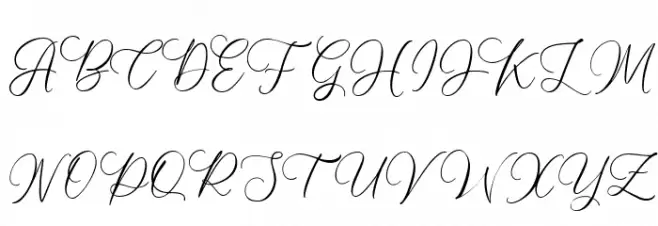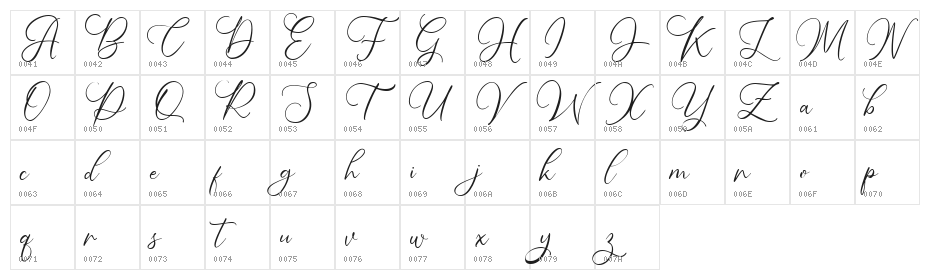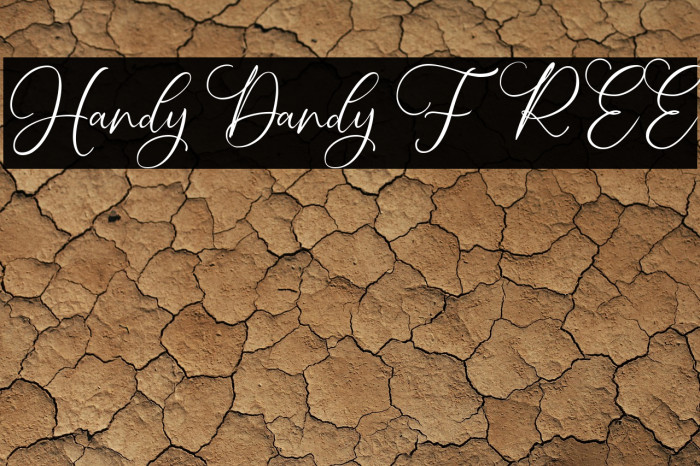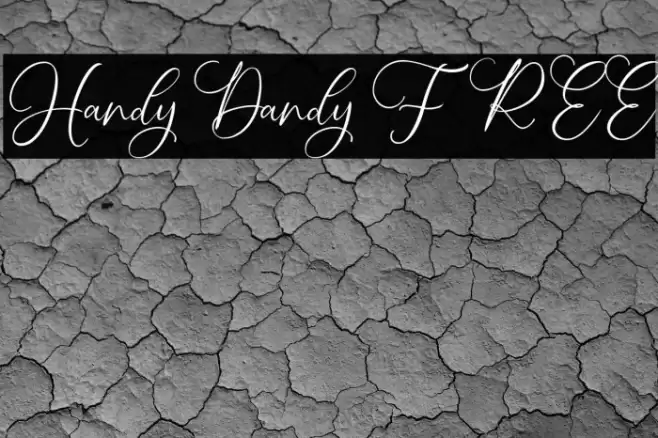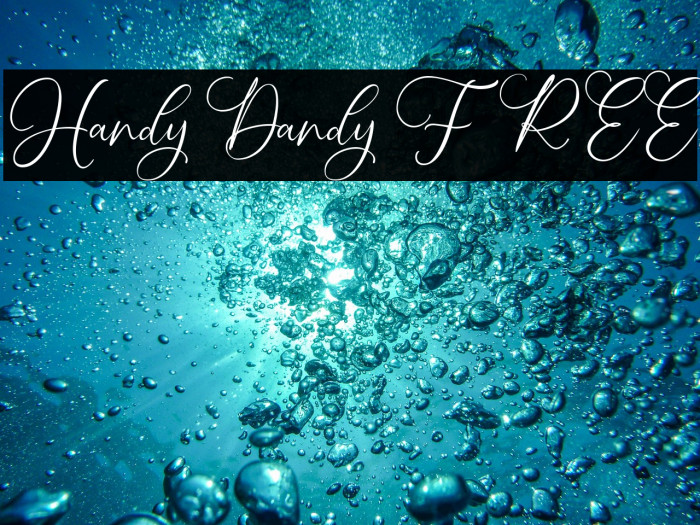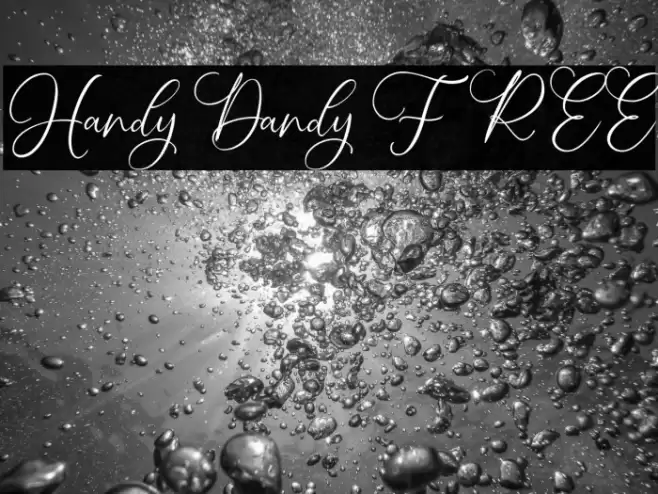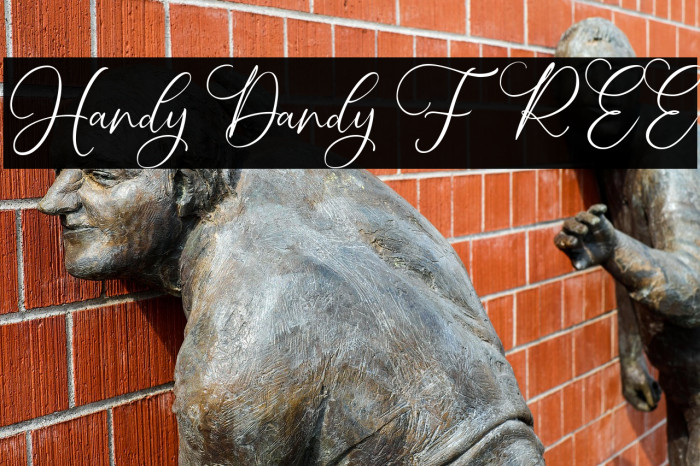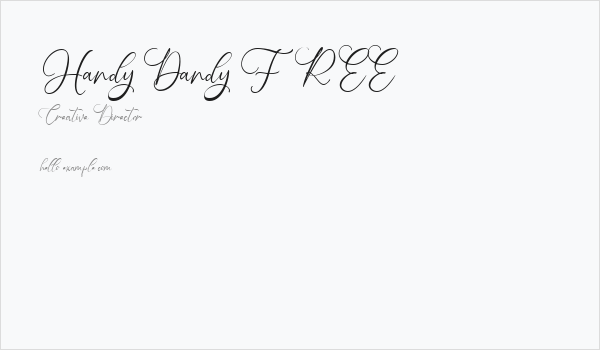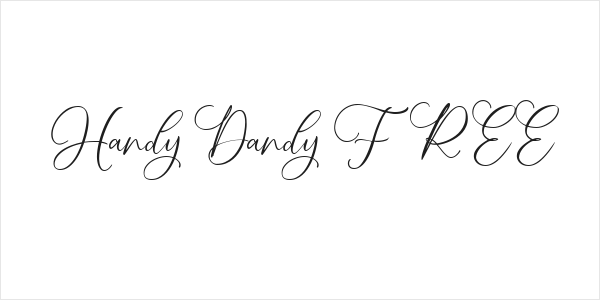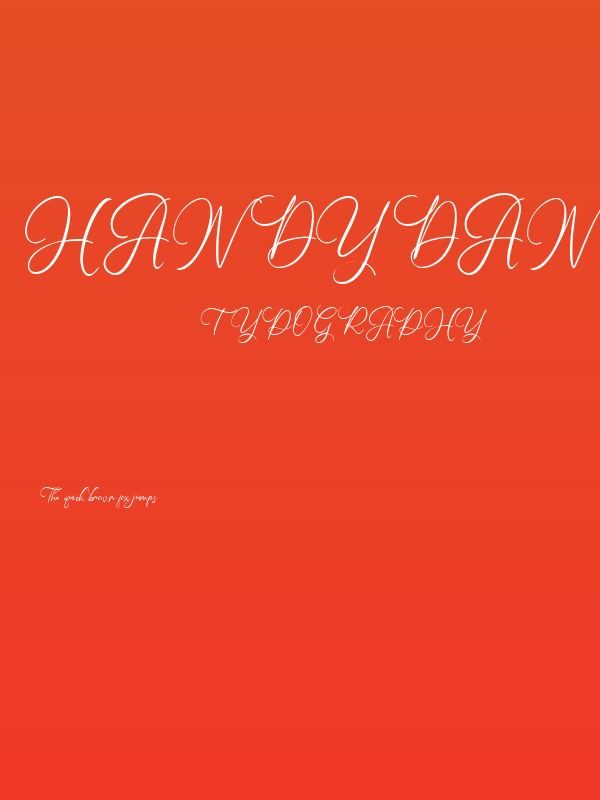
Handy Dandy FREE Font
Handy Dandy FREE Description
This font features an elegant and flowing script style, characterized by its graceful, cursive letterforms. The uppercase letters are ornate with sweeping curves and flourishes, while the lowercase letters maintain a consistent fluidity, enhancing the overall aesthetic. The font exudes a sense of sophistication and charm, making it ideal for formal invitations, branding, and decorative purposes. Its design is reminiscent of traditional calligraphy, yet it maintains a modern touch with its clean lines and balanced proportions. The characters are well-spaced, ensuring readability while preserving the artistic flair.
| Use Case | Headlines, Invitations, Branding |
| Proposed Projects | Ideal for wedding invitations, elegant branding, greeting cards, and decorative signage. |